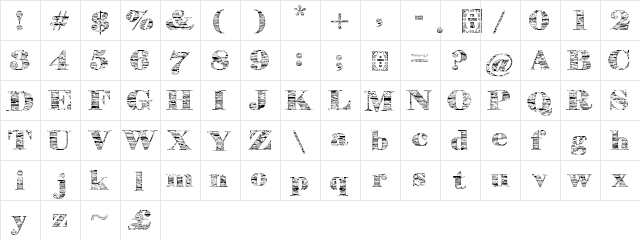
StoneStoryPlusP Regular
Design Context for StoneStoryPlusP Typeface
StoneStoryPlusP is a composed and adaptable typeface that performs quietly and consistently across a wide range of design contexts.